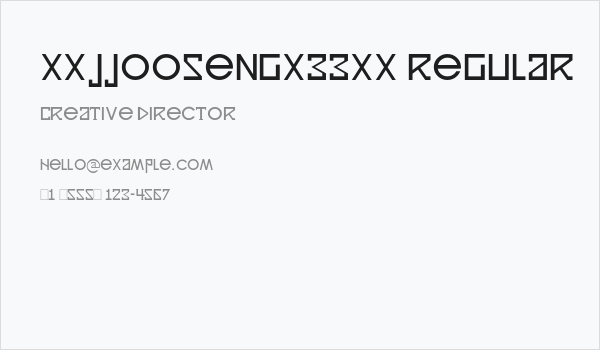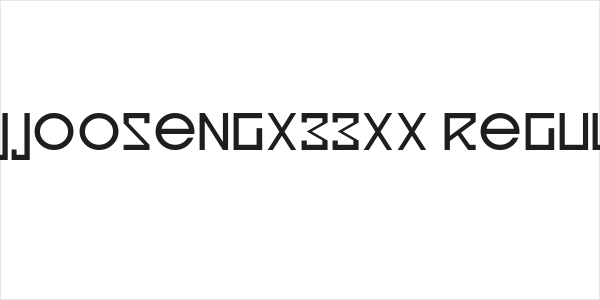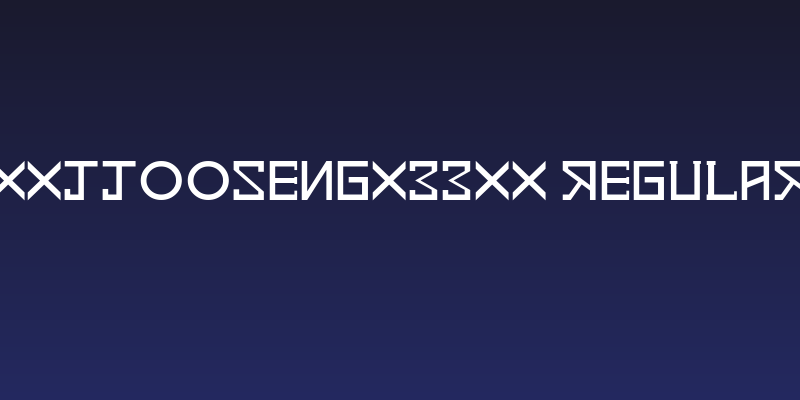
xxjjoosengx33xx regular Font
xxjjoosengx33xx regular Description
This font features a geometric and angular design, characterized by sharp edges and a modern aesthetic. The uppercase and lowercase letters share a consistent style, with each character exhibiting a unique blend of straight lines and subtle curves. The numerals are bold and maintain the angular theme, ensuring readability while adding a distinctive flair. Special characters are designed to complement the overall style, making this font suitable for a variety of creative applications. The uniformity in stroke thickness and the precise alignment of characters contribute to its clean and structured appearance.
| Proposed Projects | Ideal for branding, posters, and digital media projects that require a modern and edgy look. |